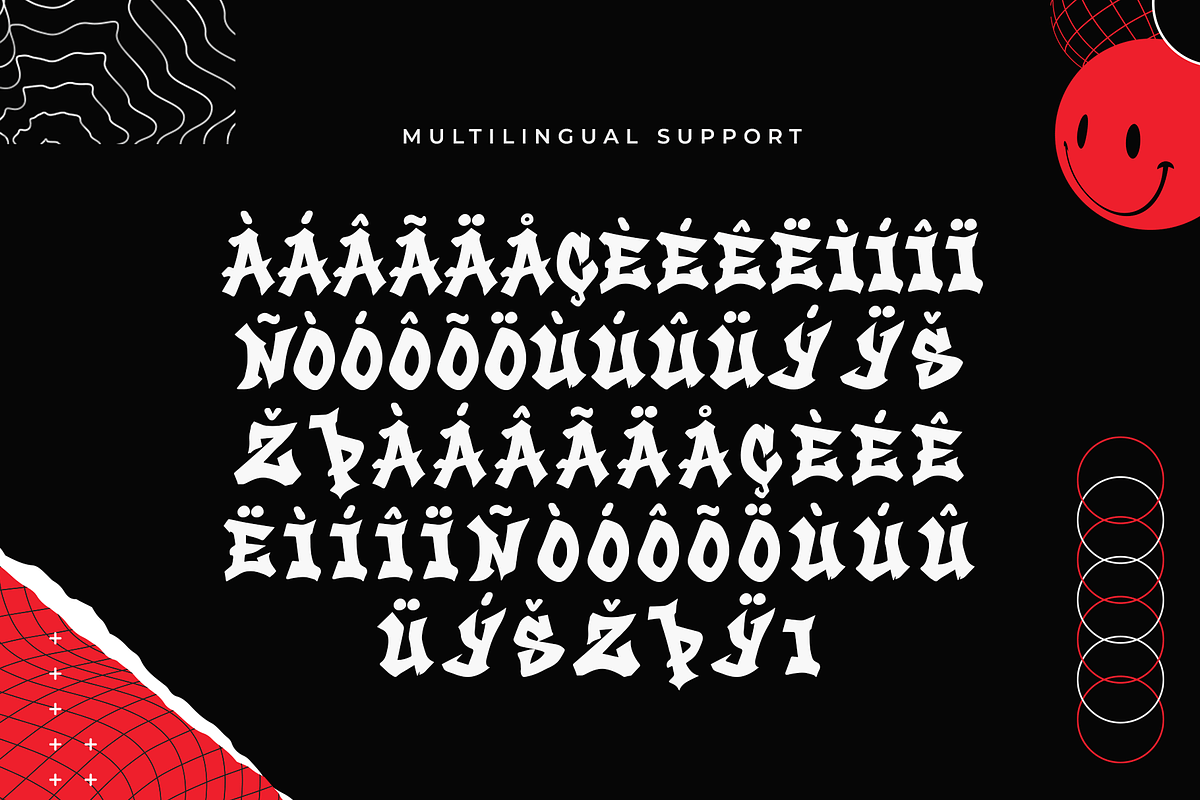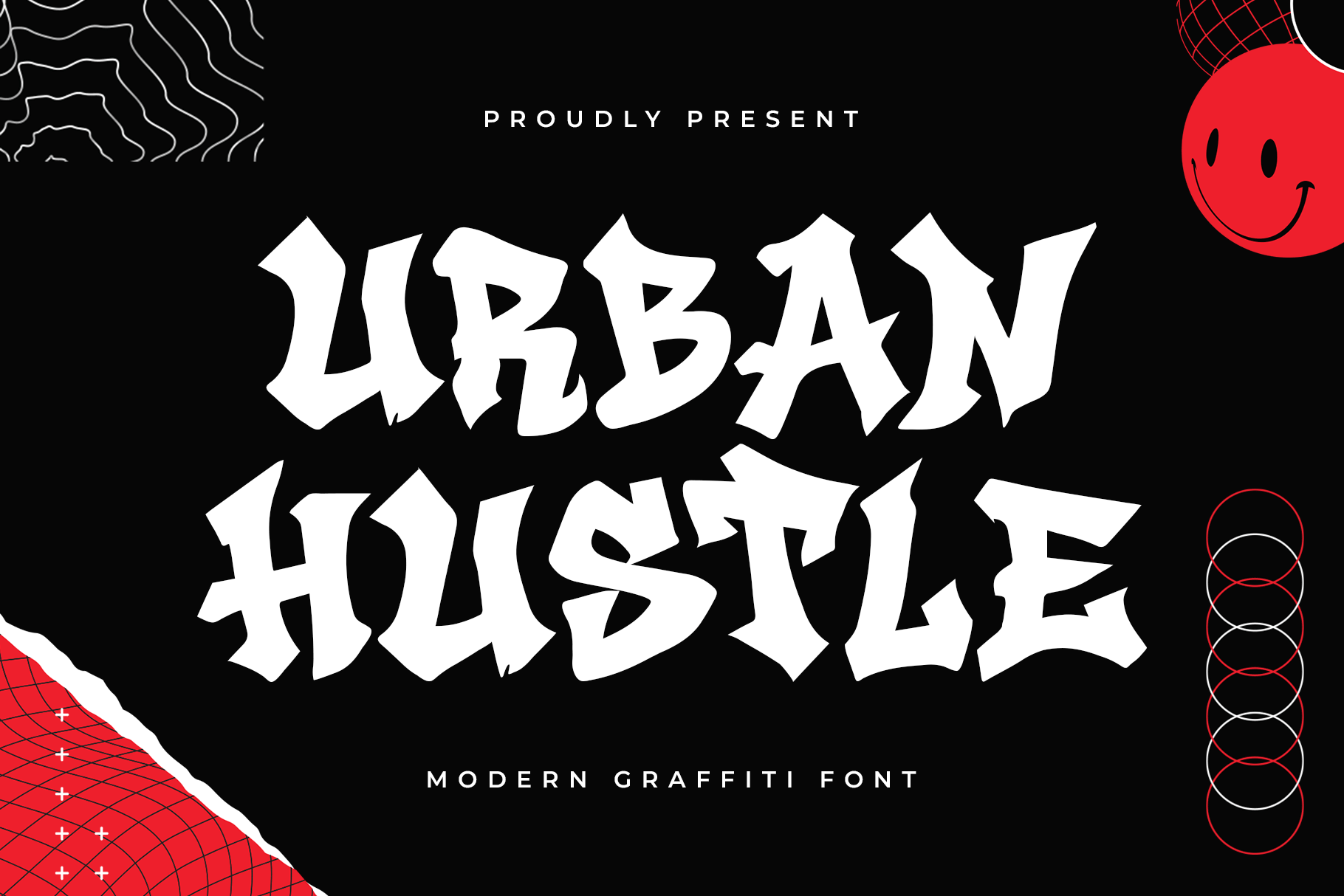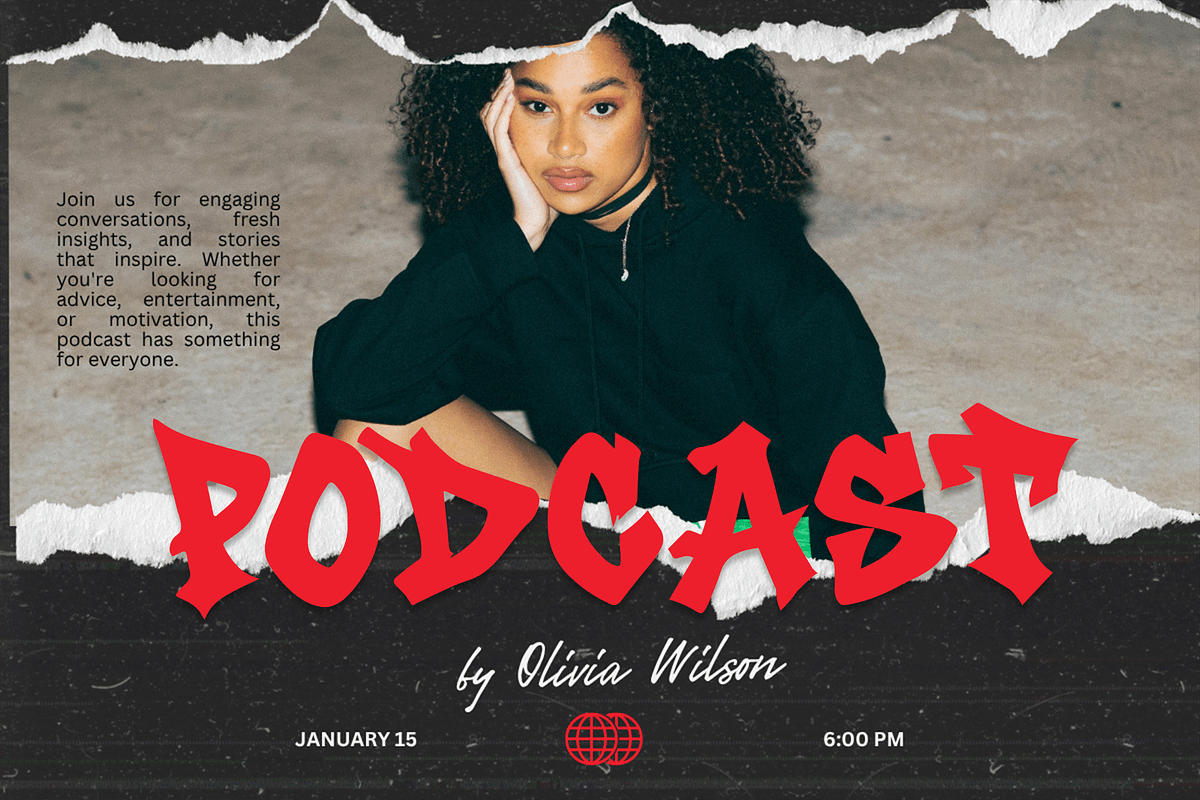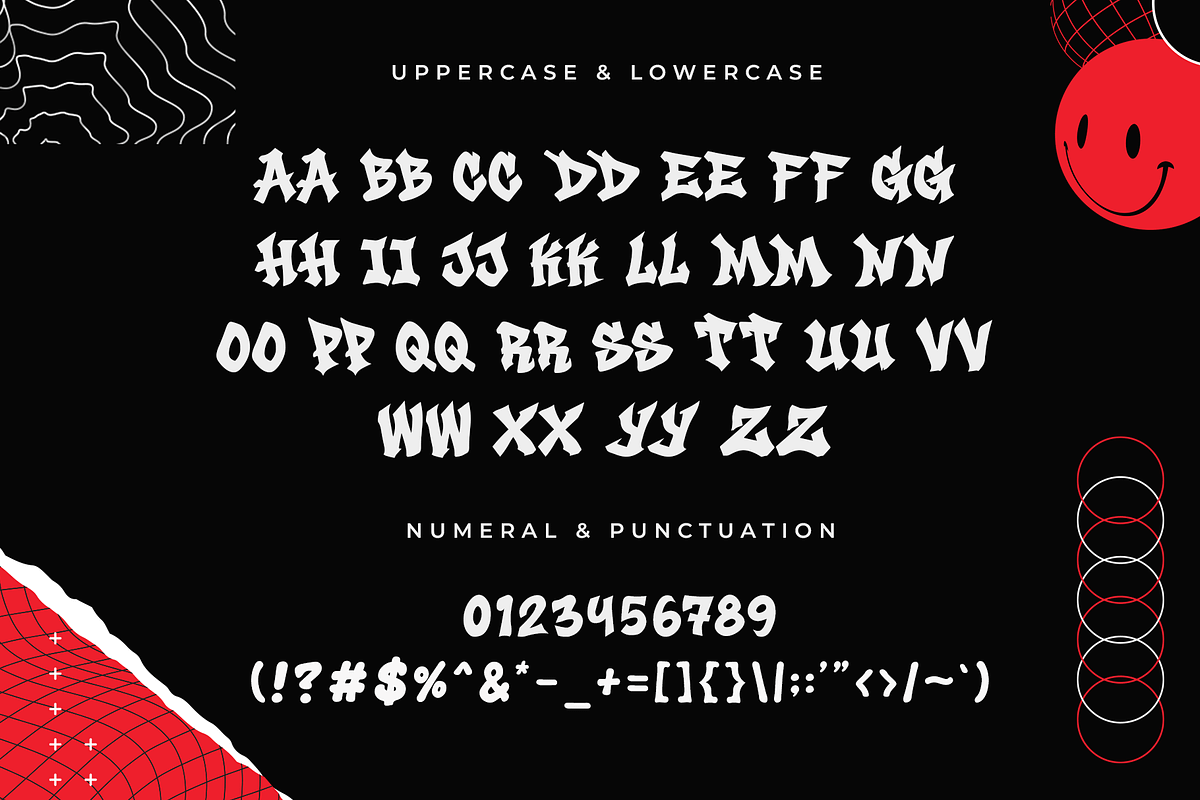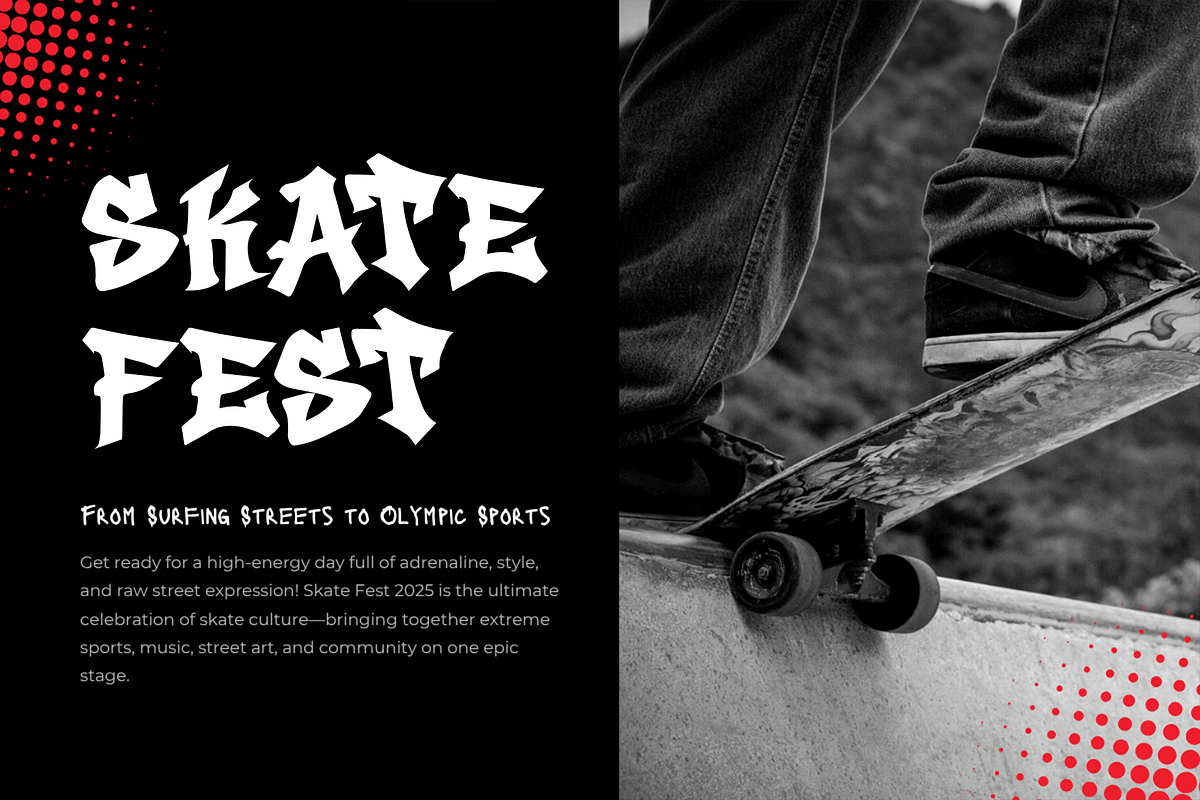
Urban Hustle–A Modern Graffiti Font
Urban Hustle – A Modern Graffiti Font
Urban Hustle is a modern graffiti font that embodies the heartbeat of the streets—bold, expressive, and full of energy. Crafted with dynamic strokes and raw personality, this typeface channels the spirit of graffiti culture and urban artistry into every character.
Perfect for streetwear branding, hip-hop album covers, music festivals, skatepark promotions, and bold digital artwork, Urban Hustle delivers an authentic street vibe with its edgy letterforms and eye-catching style. It blends the chaos of spray paint with a structured modern edge, making it versatile for both artistic and commercial use.
Let your designs scream confidence, attitude, and creativity Urban Hustle is your go-to font when the streets are your canvas.